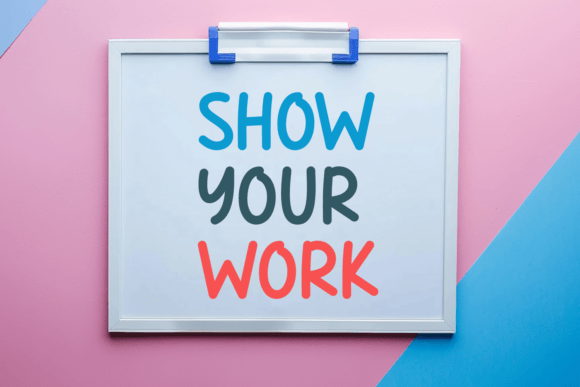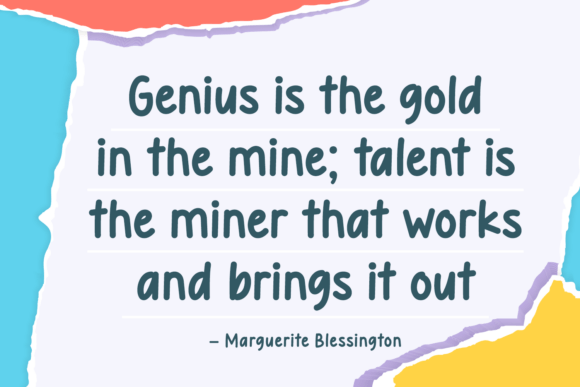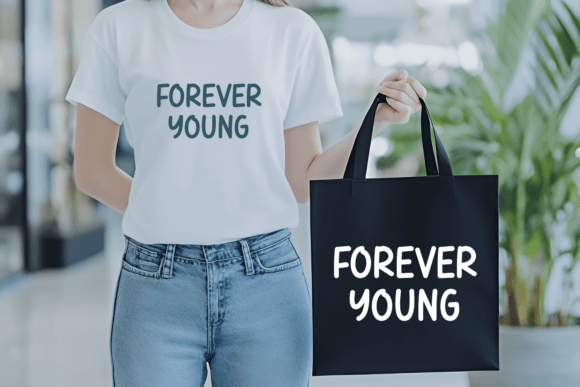
Introduction to Great Talent Font
Great Talent is a stylish handwritten font that feels personal and friendly.
Its smooth, flowing letters give a casual and creative vibe, making it perfect for invitations, greeting cards, and any project that needs a warm touch The font is easy to read and adds a unique, artistic flair to your designs.
Key Features of Great Talent Font